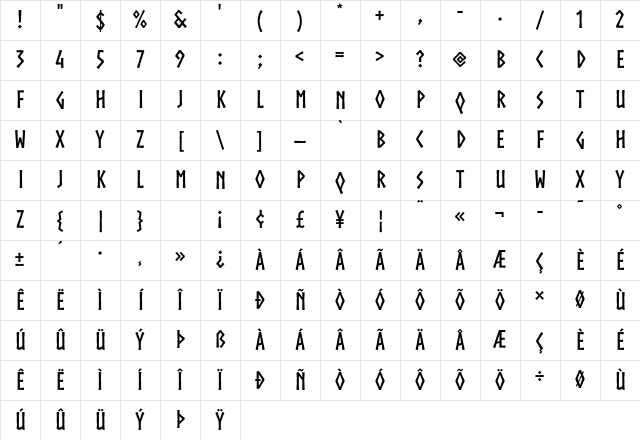
Norse Bold
Foundry: Joel Carrouche
Designer: Joel Carrouche
Design Context for Norse
Norse is a composed and adaptable typeface that performs quietly and consistently across a wide range of design contexts. Its bold stroke weight gives it real presence on the page.
Who designed the Norse Bold font?